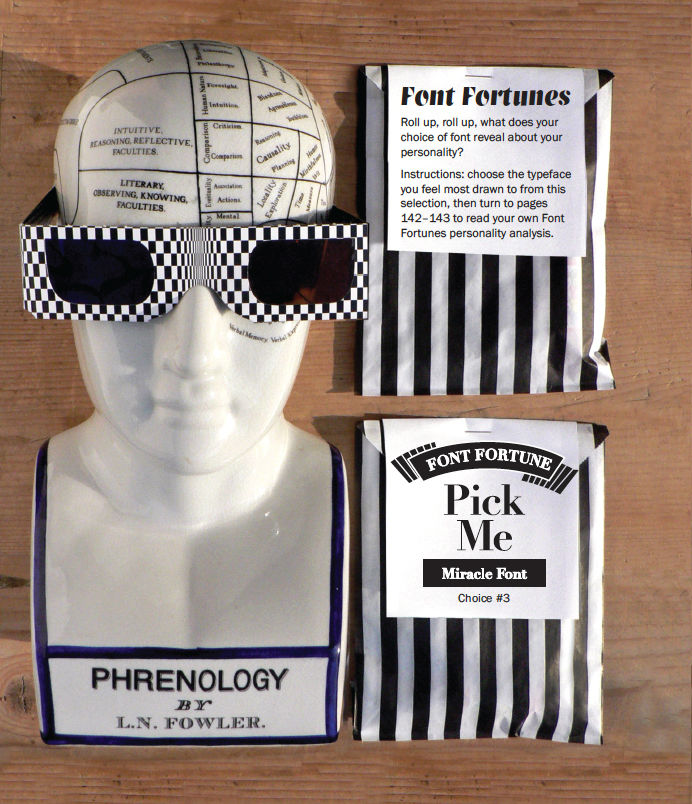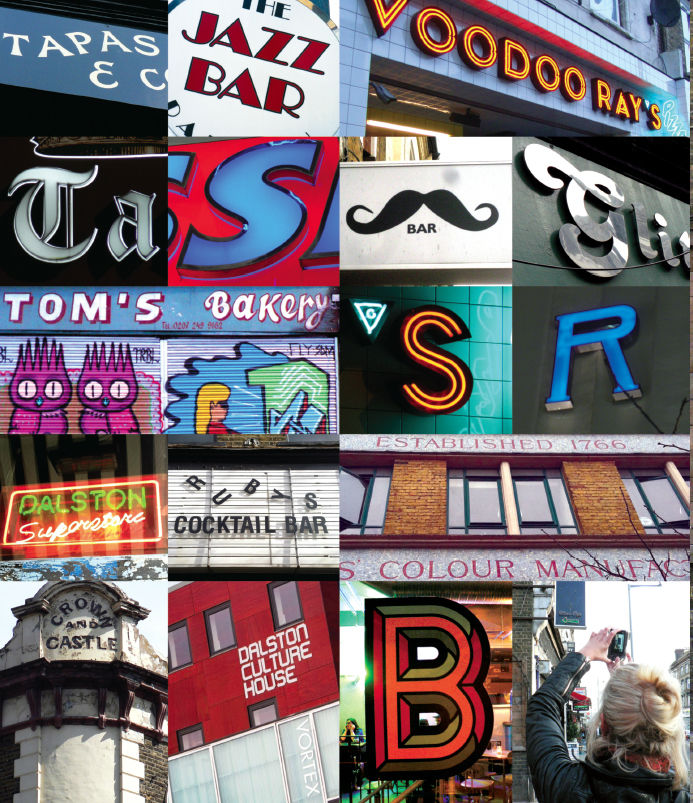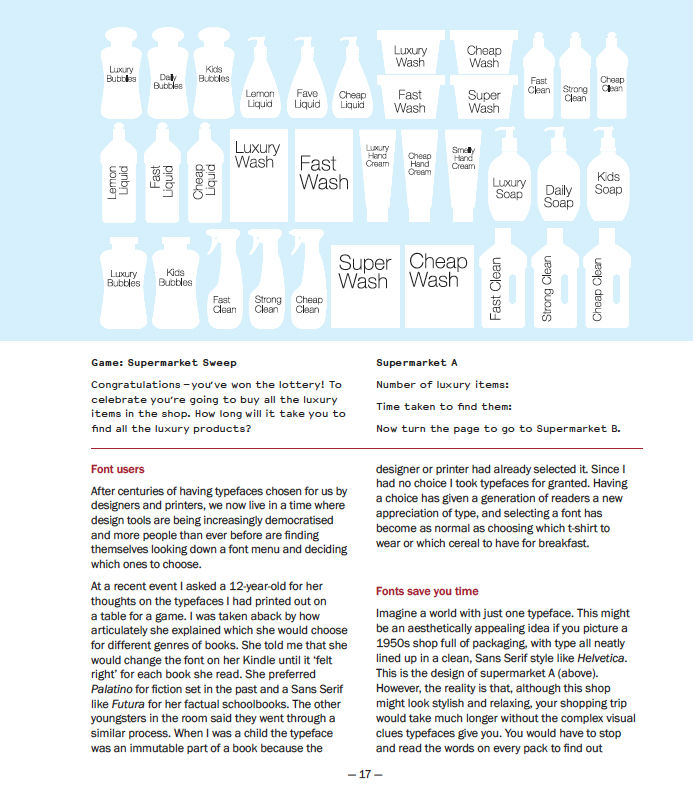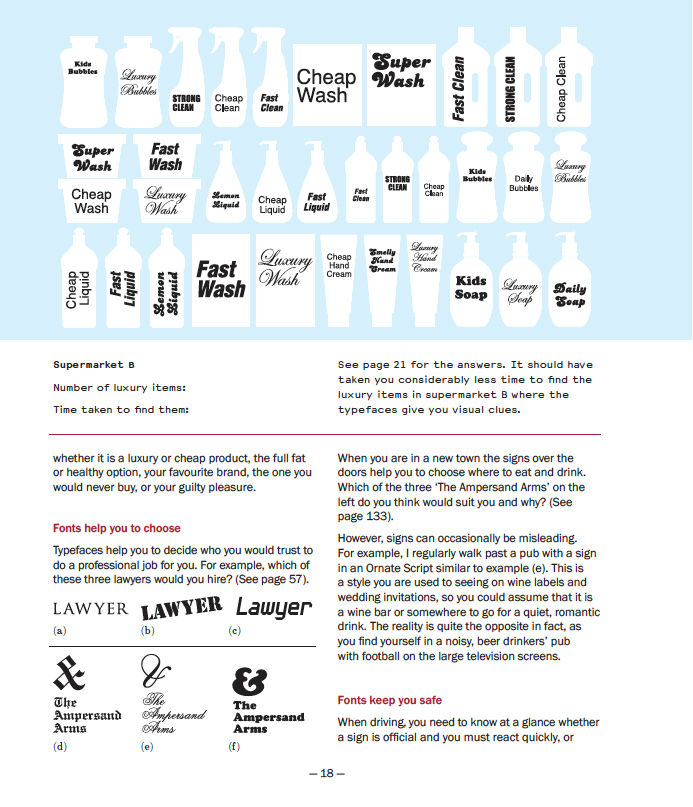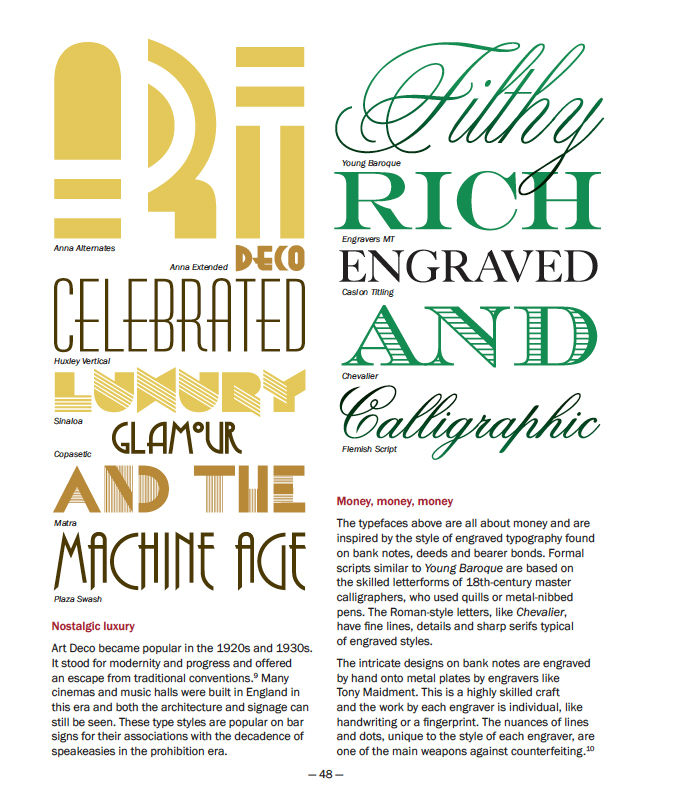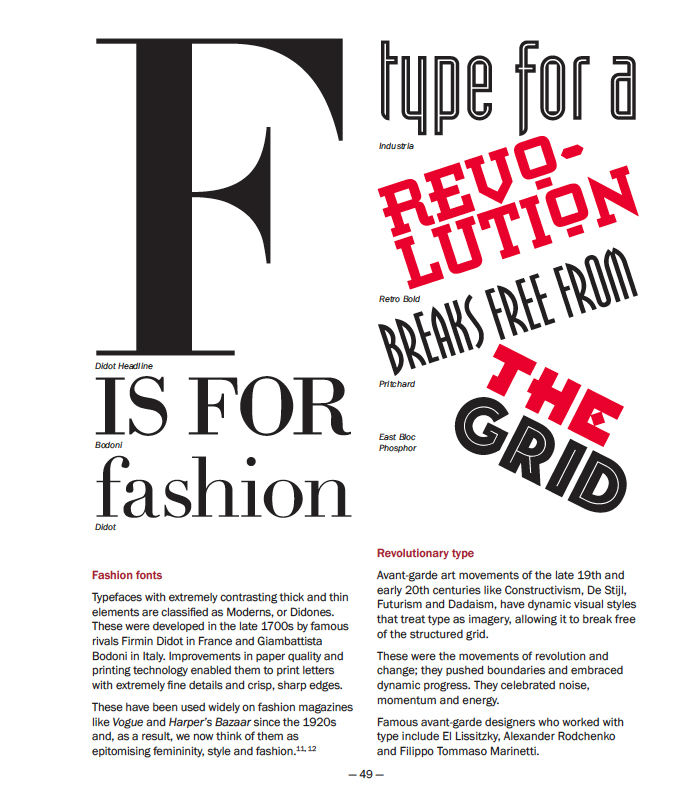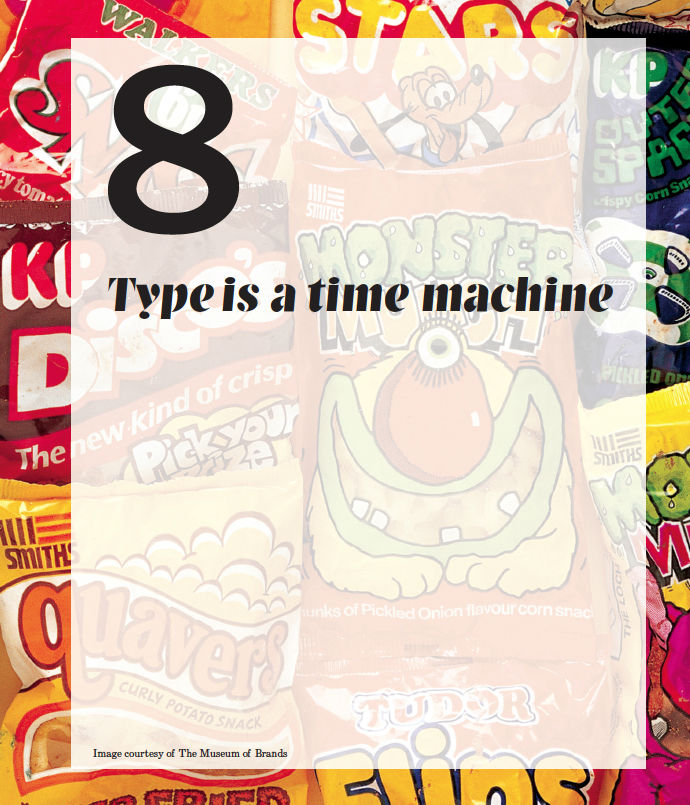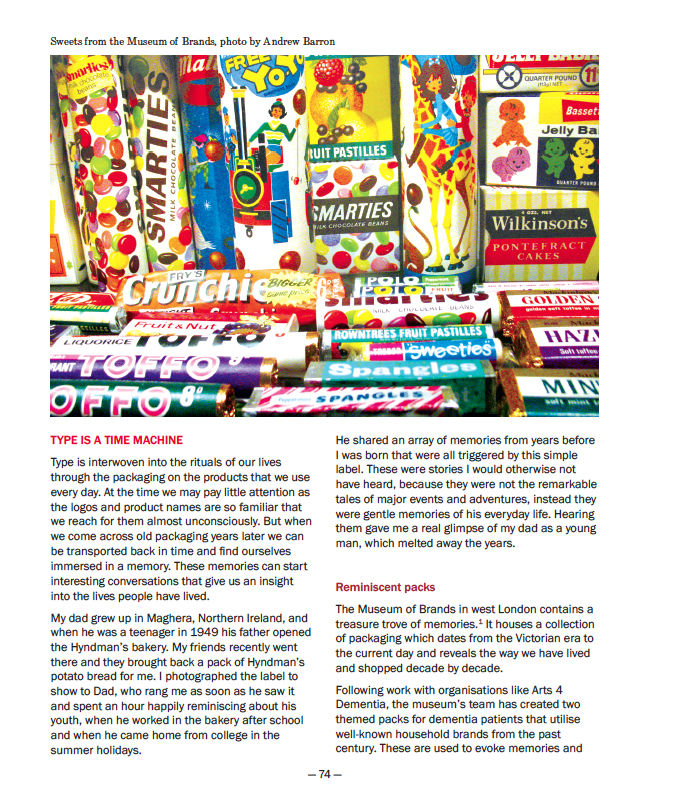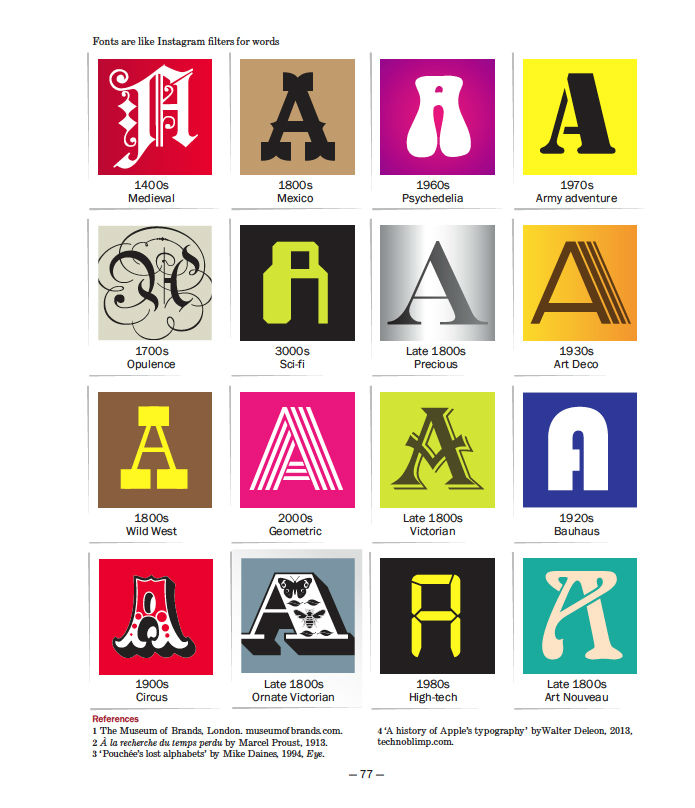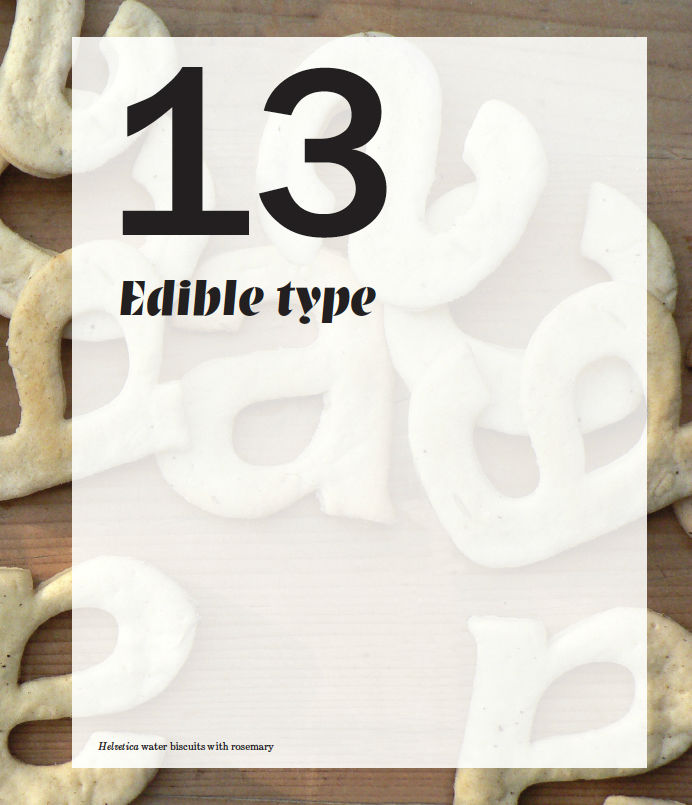
It would be so simple if this review could be reduced to one sentence: Why do fonts matter? Because they elicit emotion? Because they evoke time and place? Because they subliminally brand an entity? Because fonts message you in ways you don’t even understand.
All of the above and more. Sarah Hyndman goes beyond the aesthetic pleasure of fonts and typography for someone in the graphic design world and gets to the root of how font choices affect everyone’s daily lives. “Becoming consciously aware of the emotional life of fonts can be entertaining and ultimately give you more control over decisions you make,” she writes in the introduction. Don’t get us wrong, there are plenty of beautiful things to look at throughout the book, but you also get an understanding for why certain choices are made. It’s like workable philosophies for your aesthetic self.